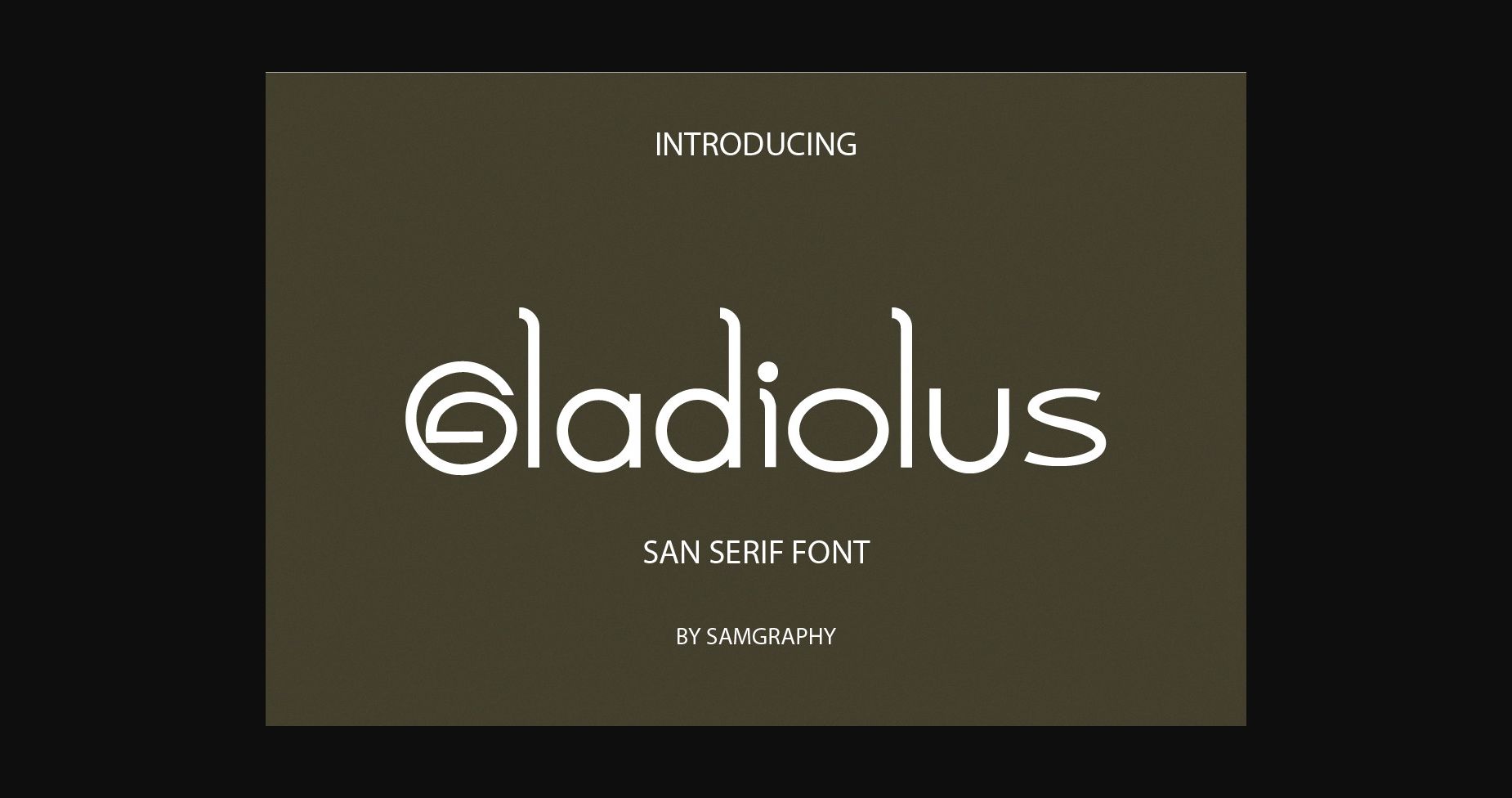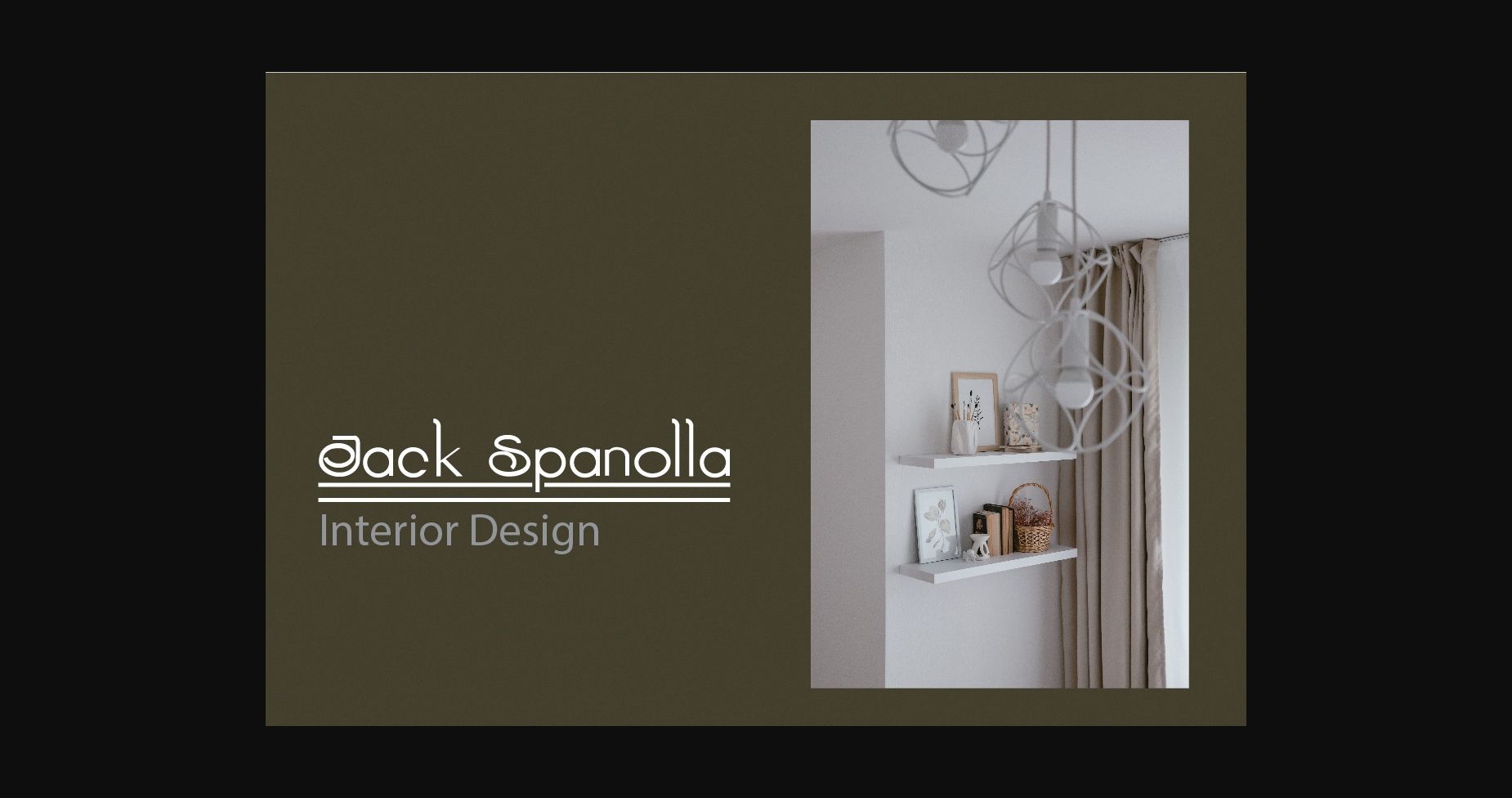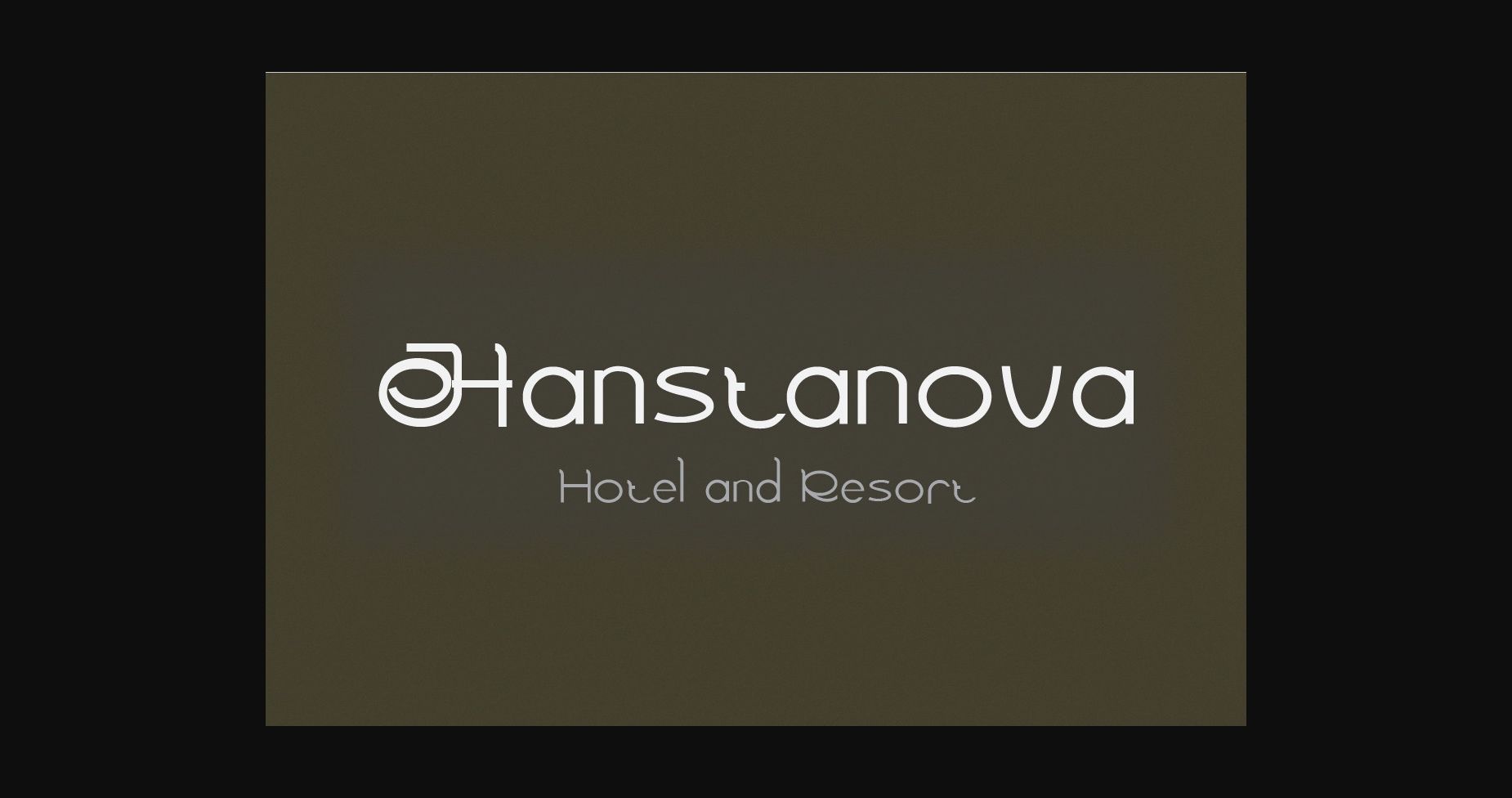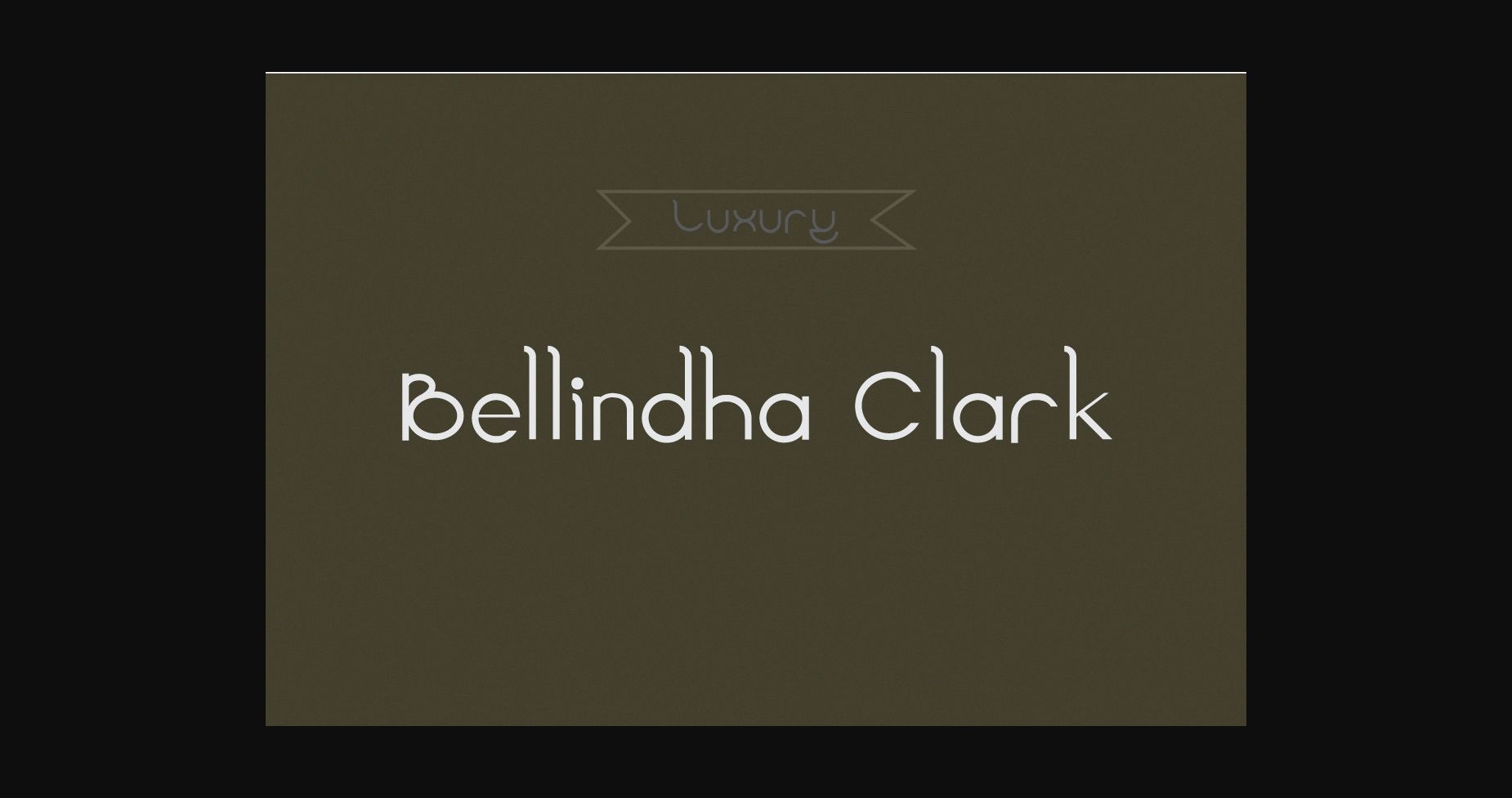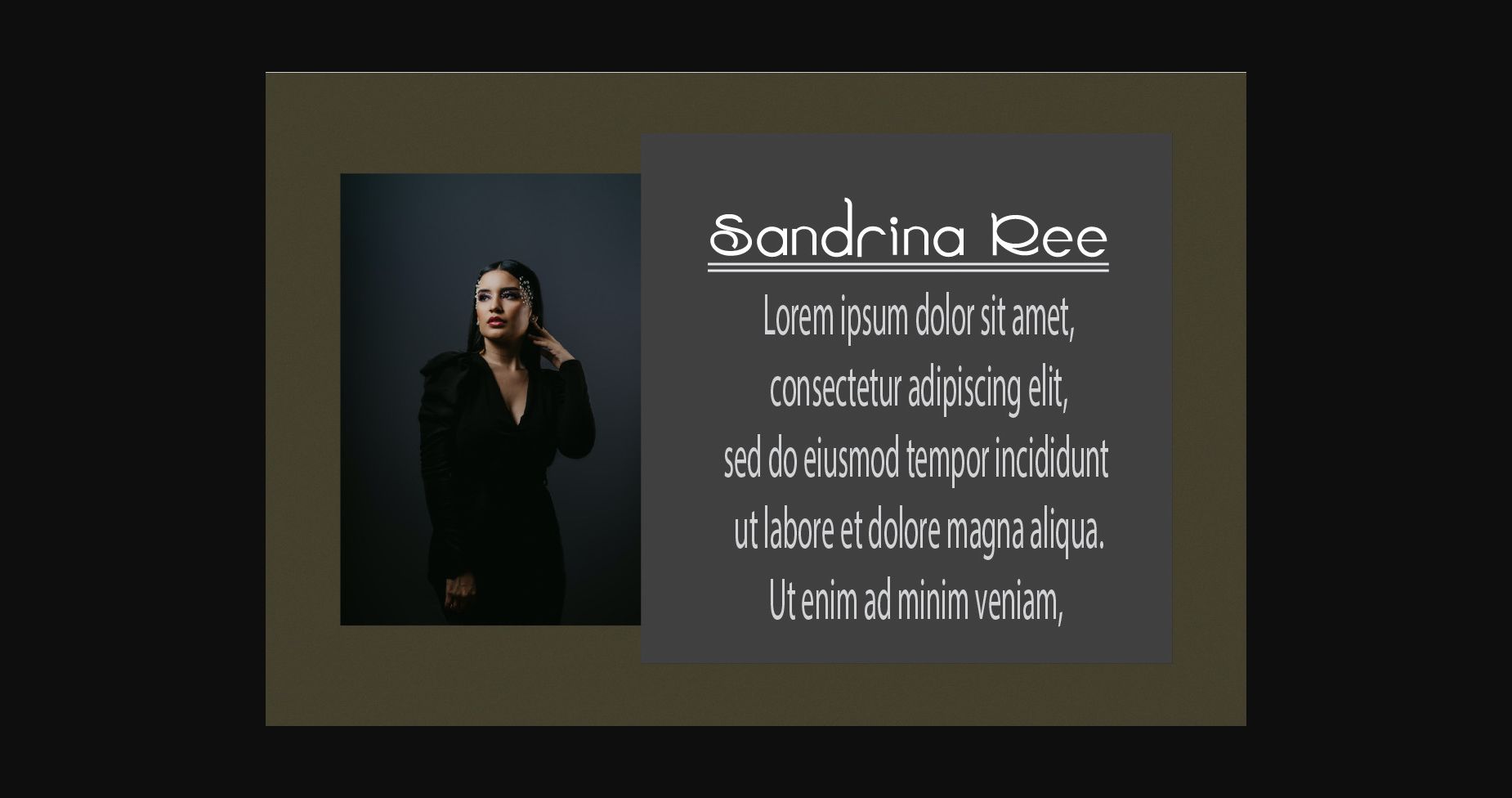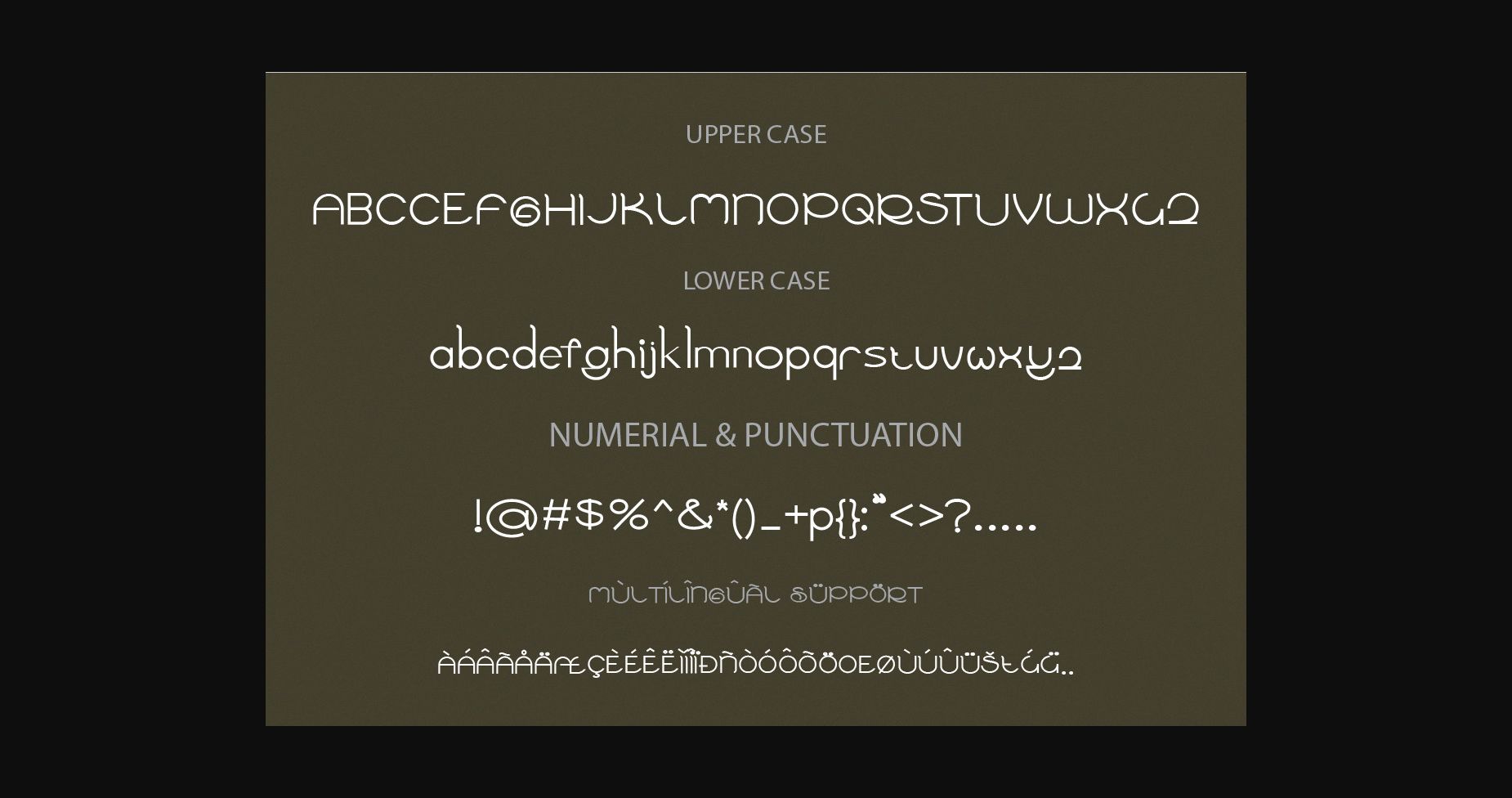
Gladiolus is a minimal and neat sans serif font. This font is ideal for writing web designs, business cards, or pretty much anything else that requires a modern touch.